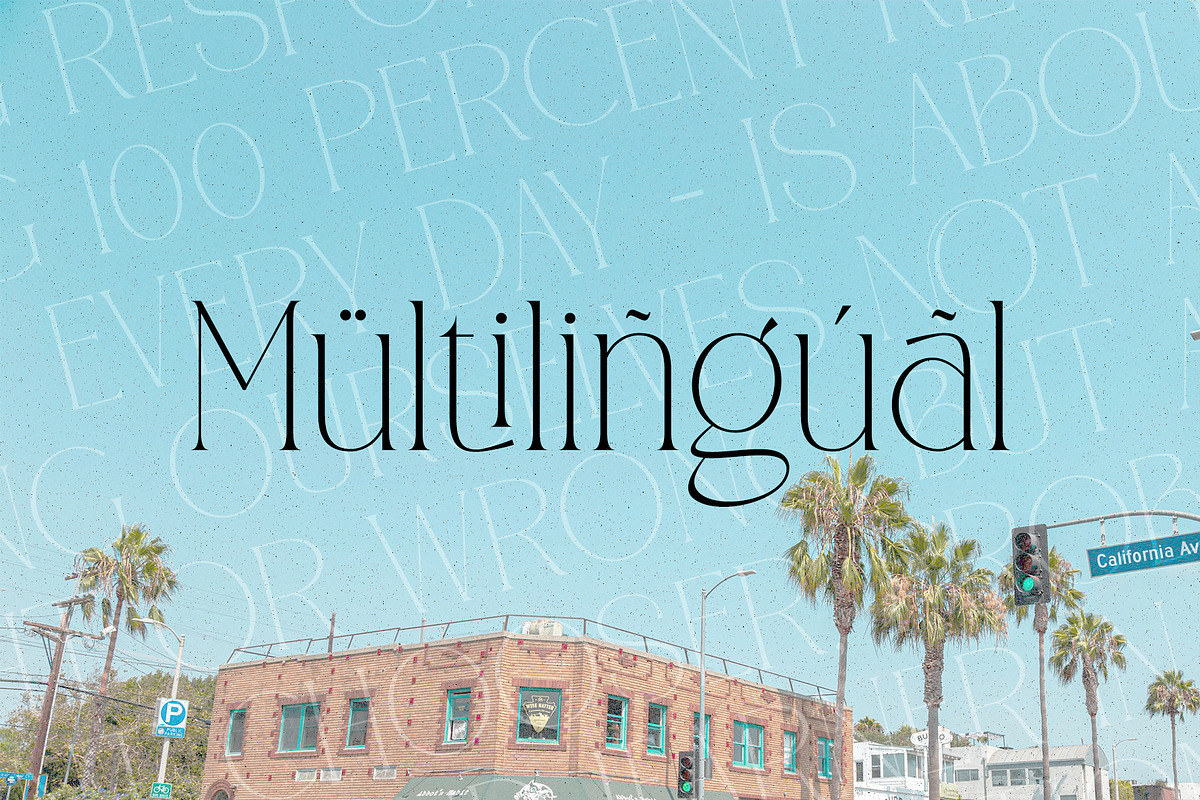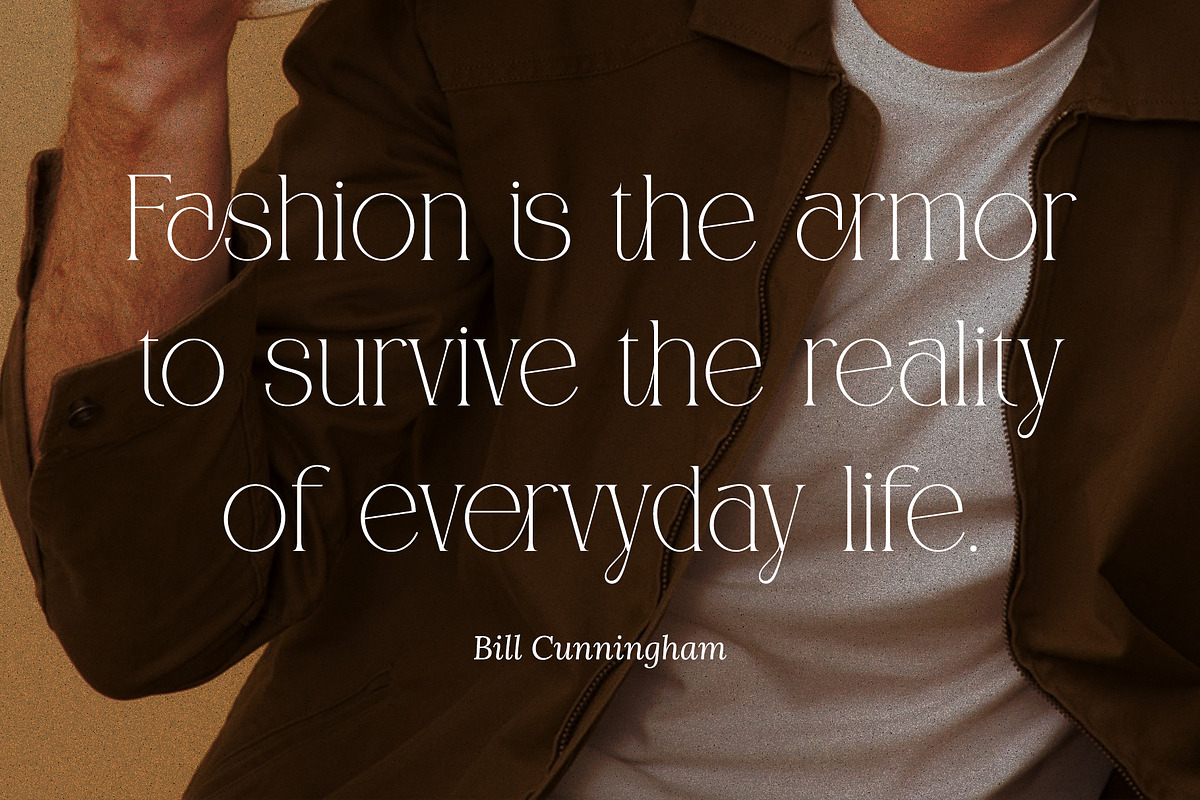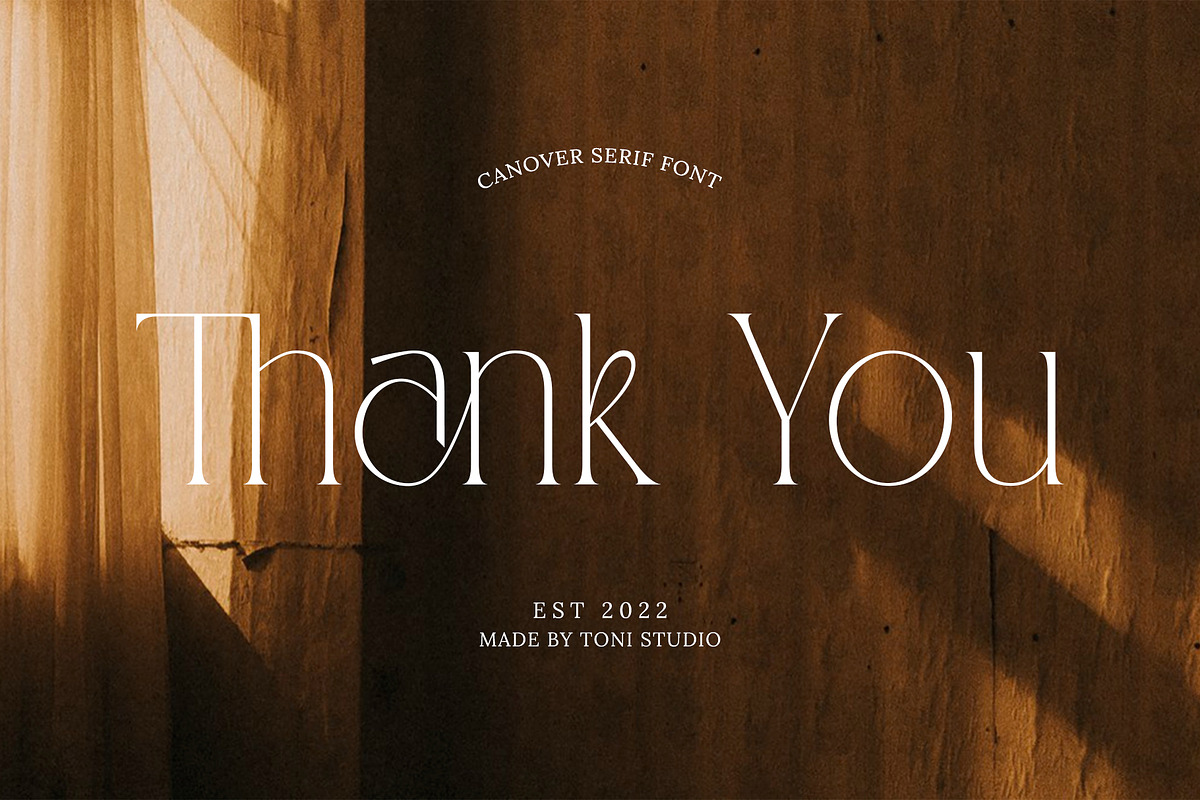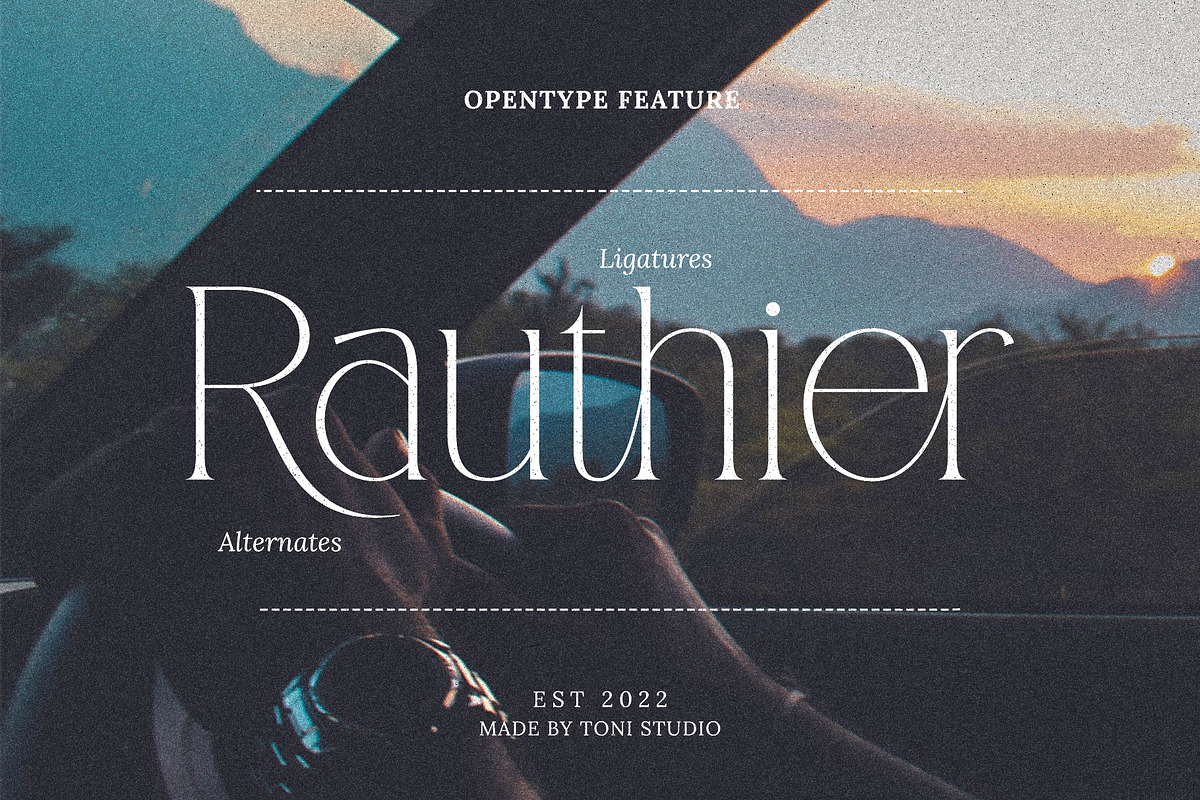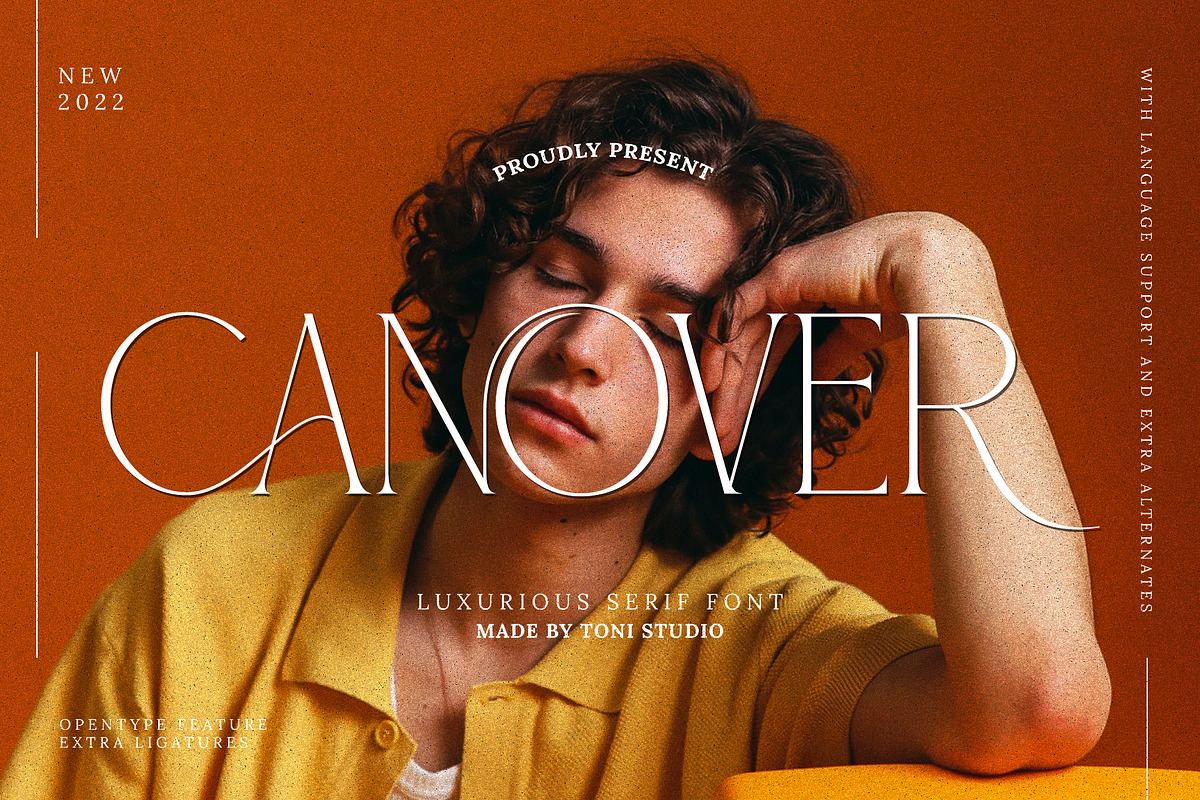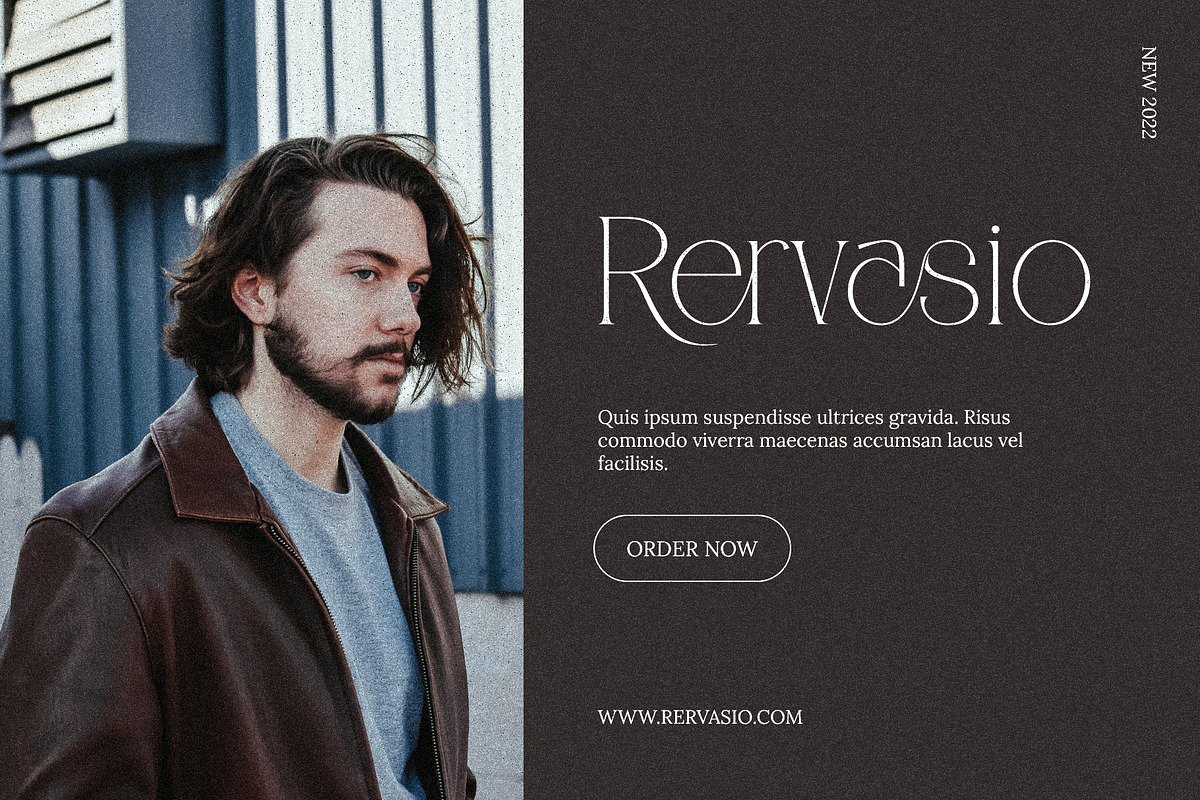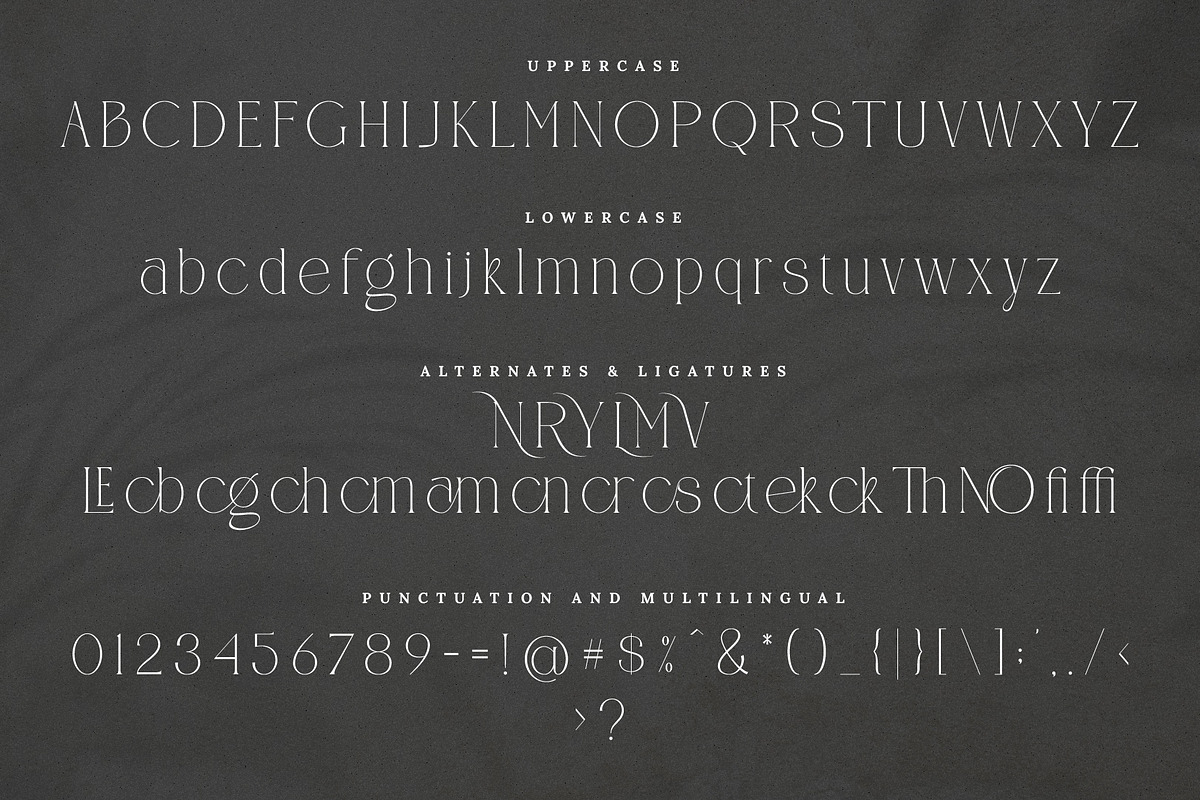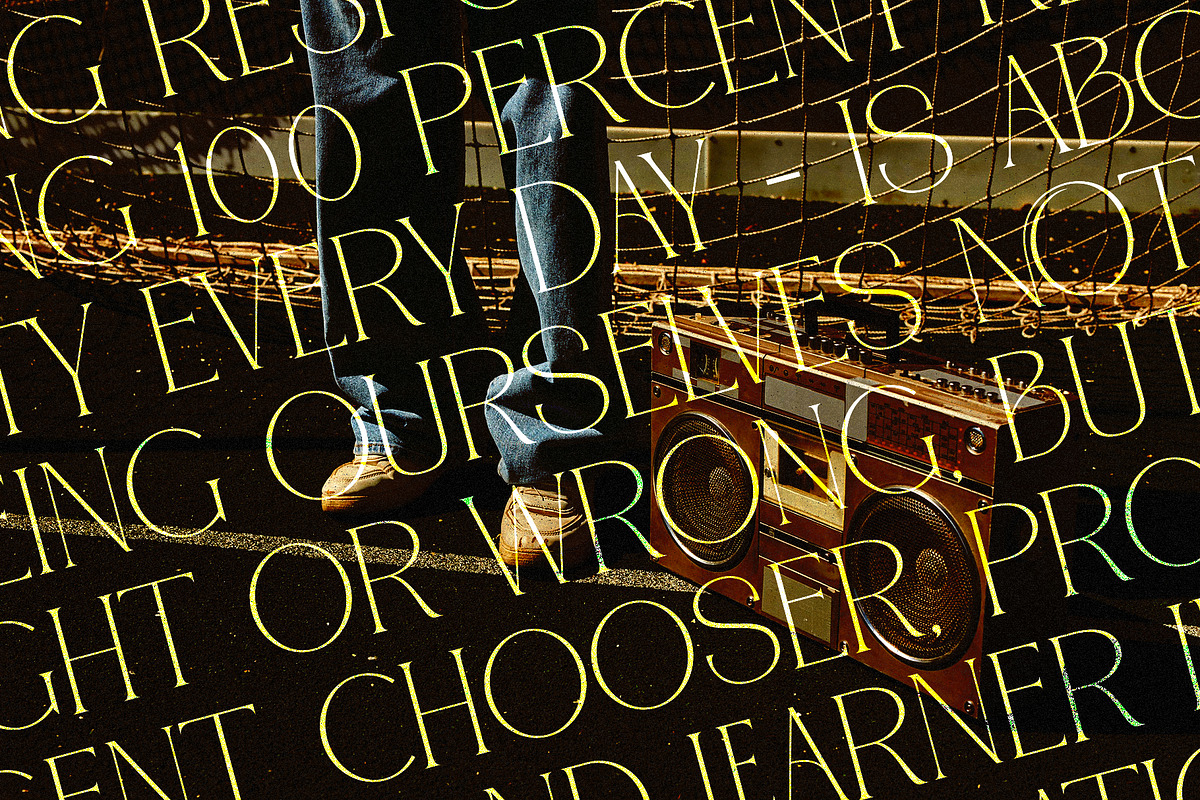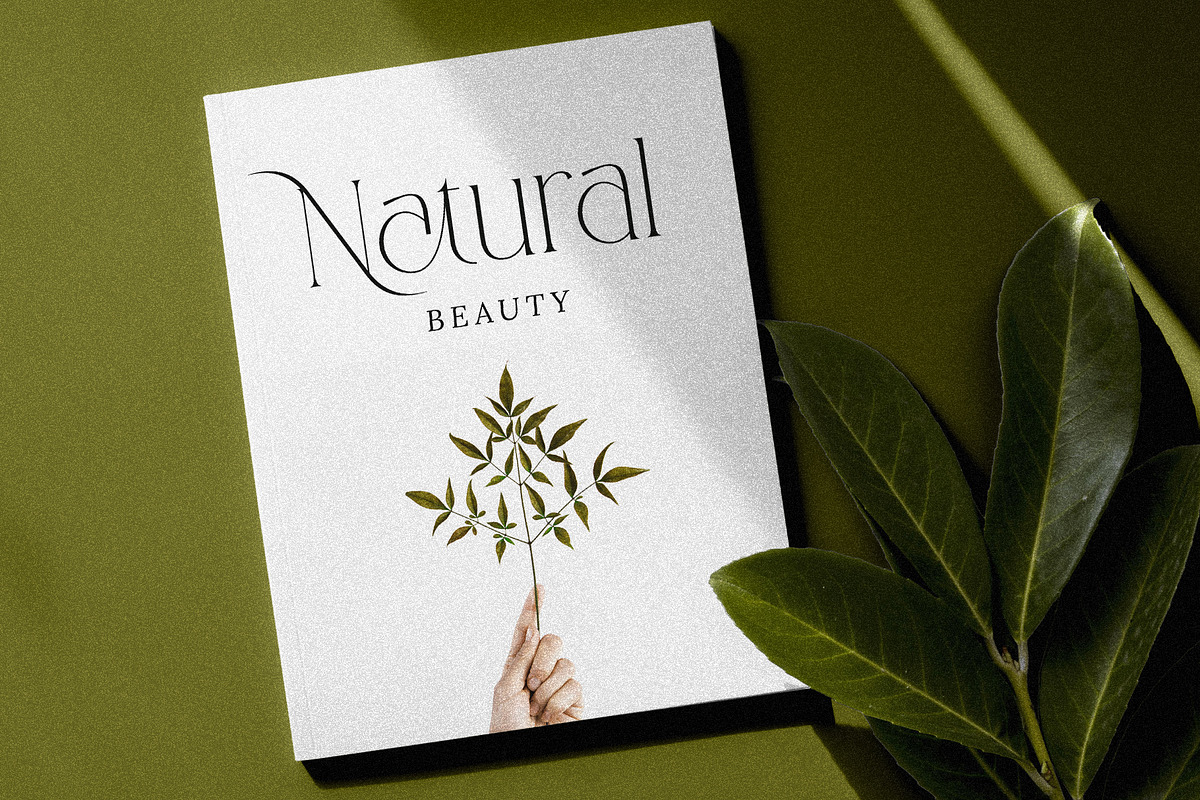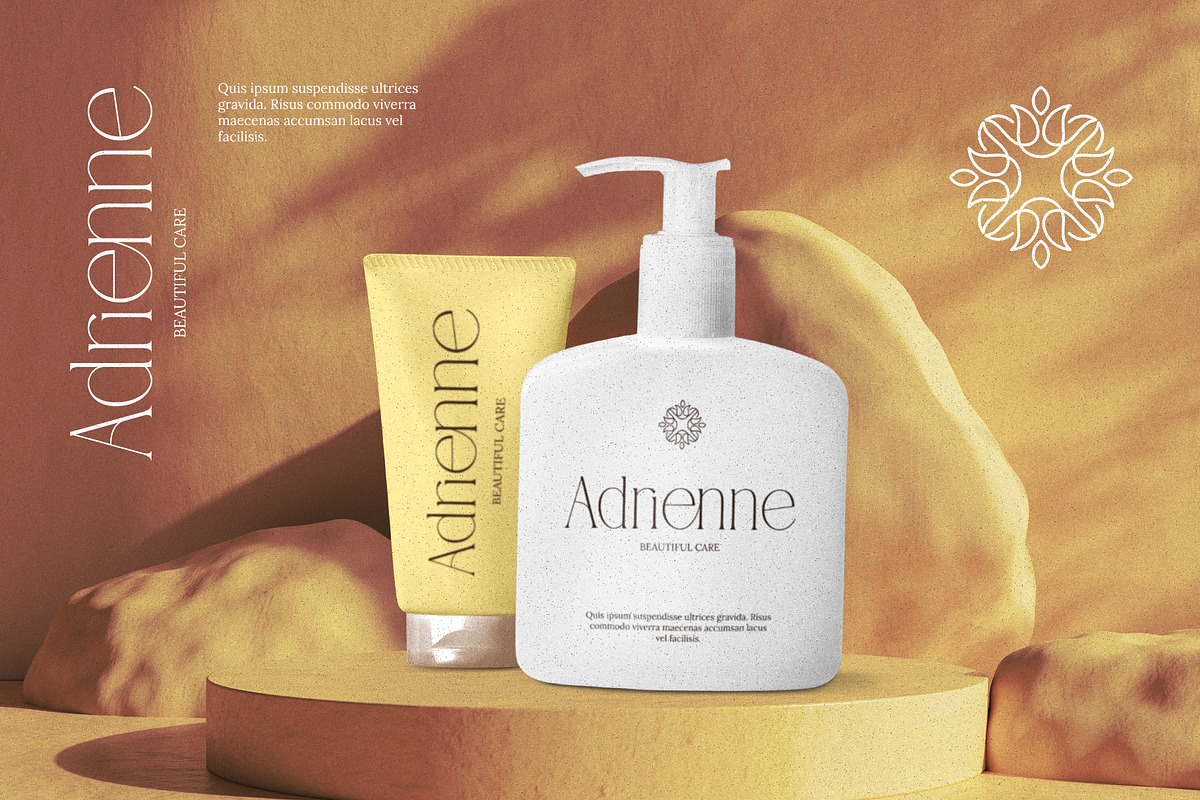
CANOVER | Ligature Serif
CANOVER is a Modern Ligature Serif Font. Its soft curves mix with high-contrast glyphs, giving it both a feminine and masculine quality. Inspired by magazine ads from the '70s and '80s - this family fits in with bringing retro back into the 21st century. Great in layout design for citations or body copy, best used as a display for titles, logos, brands, magazines, product packaging, and invitations.